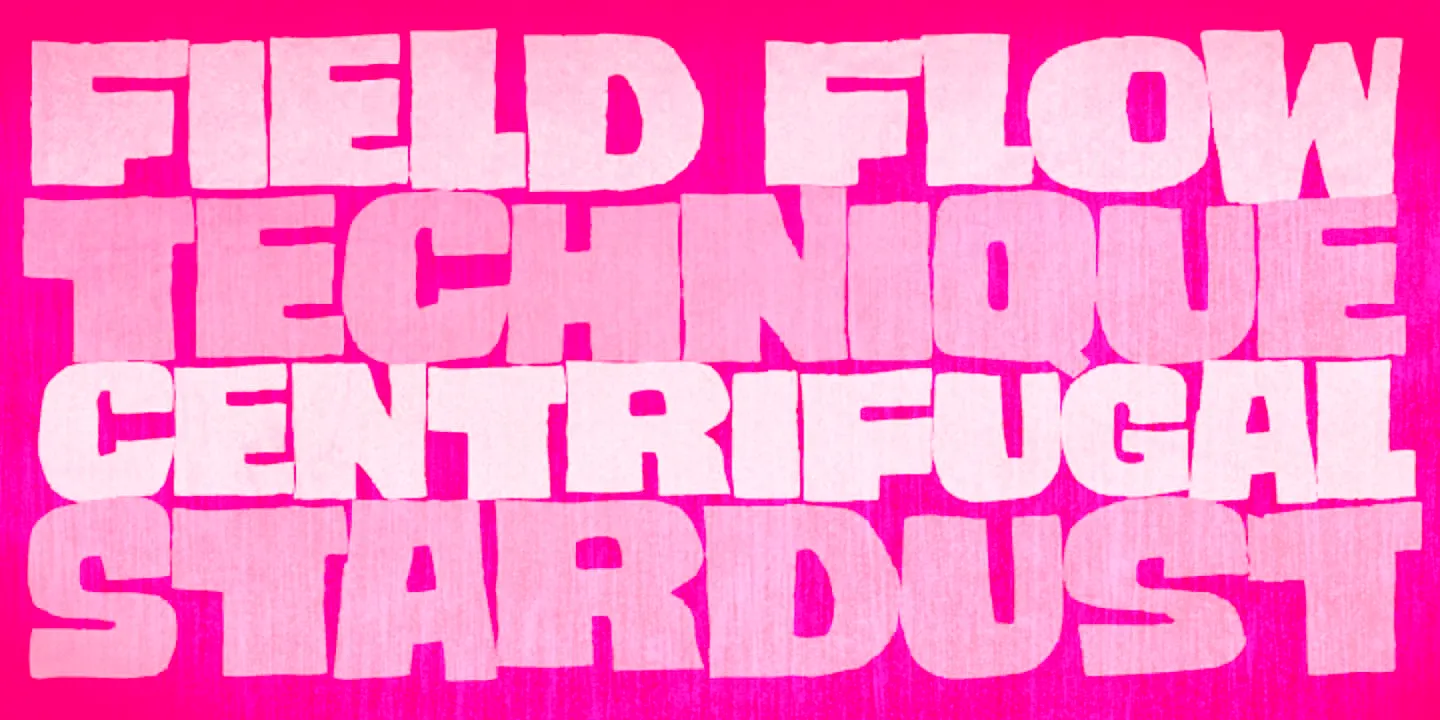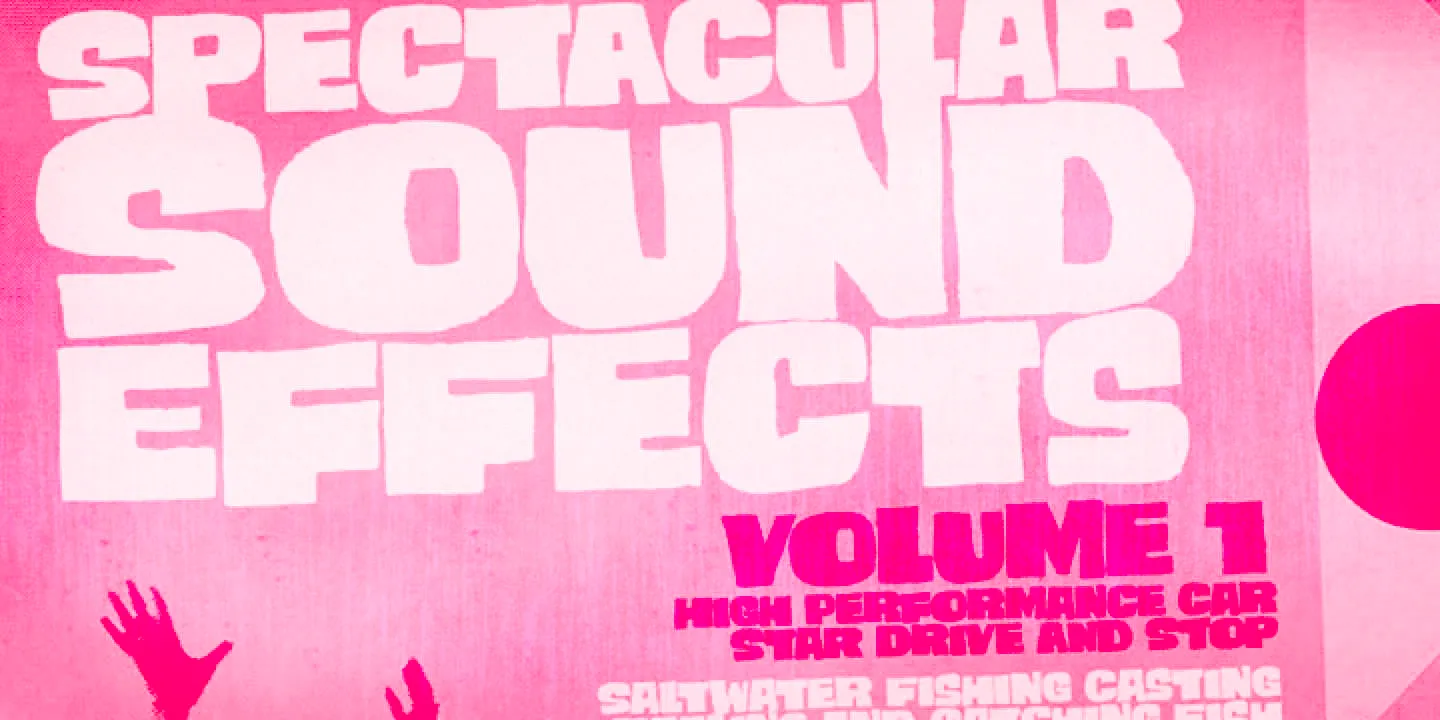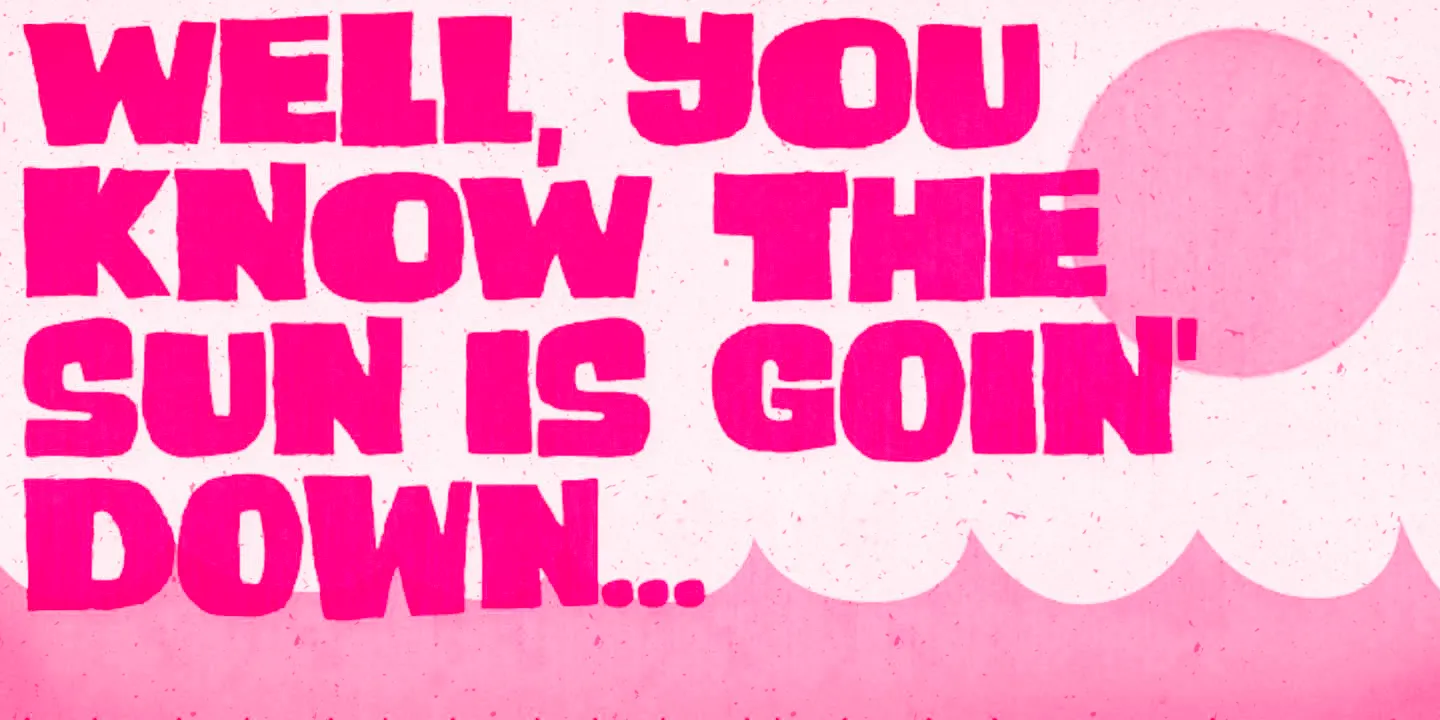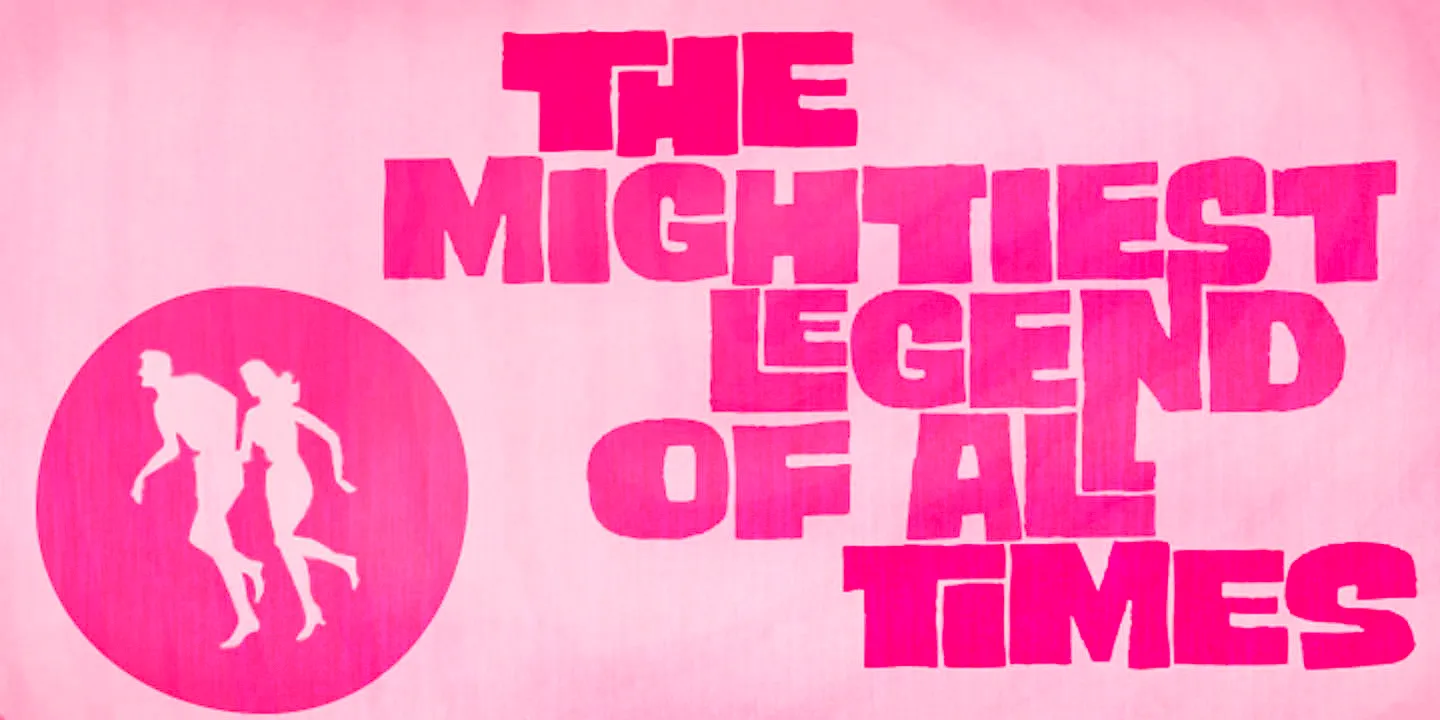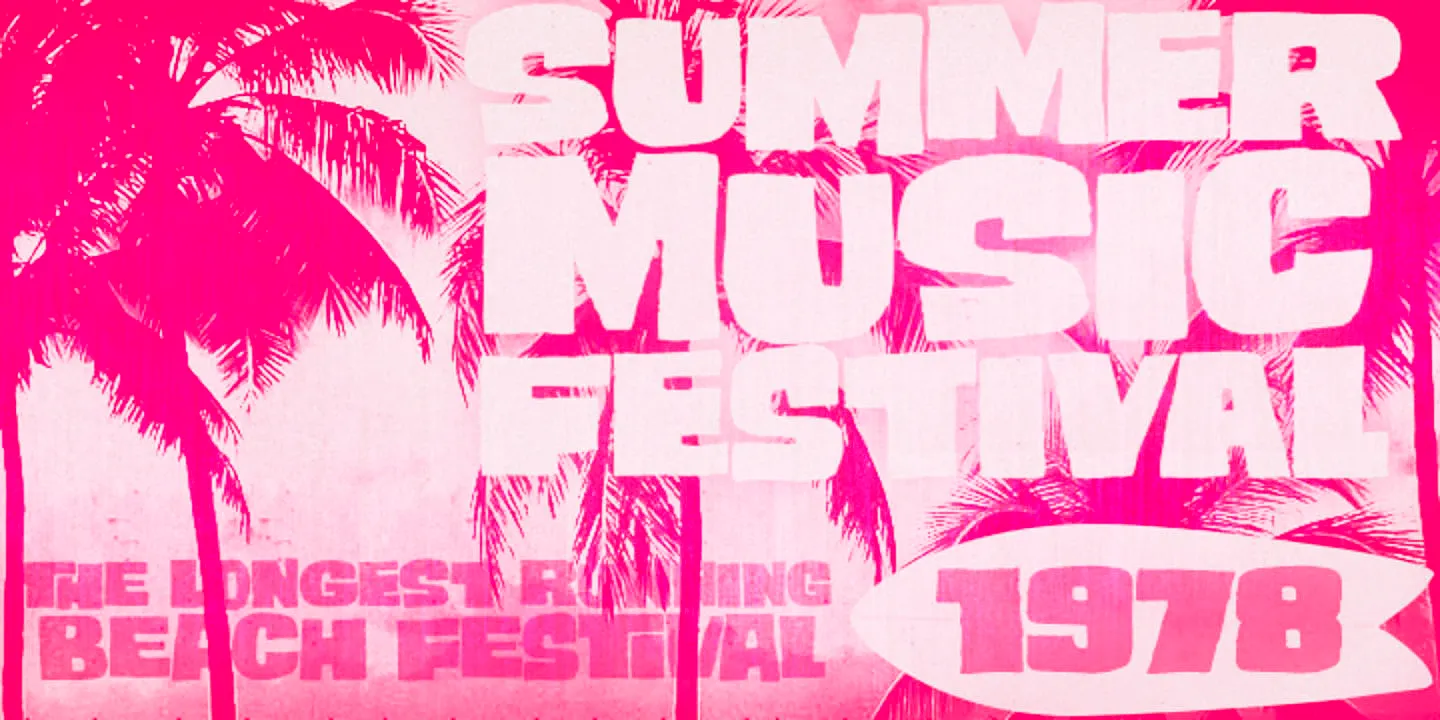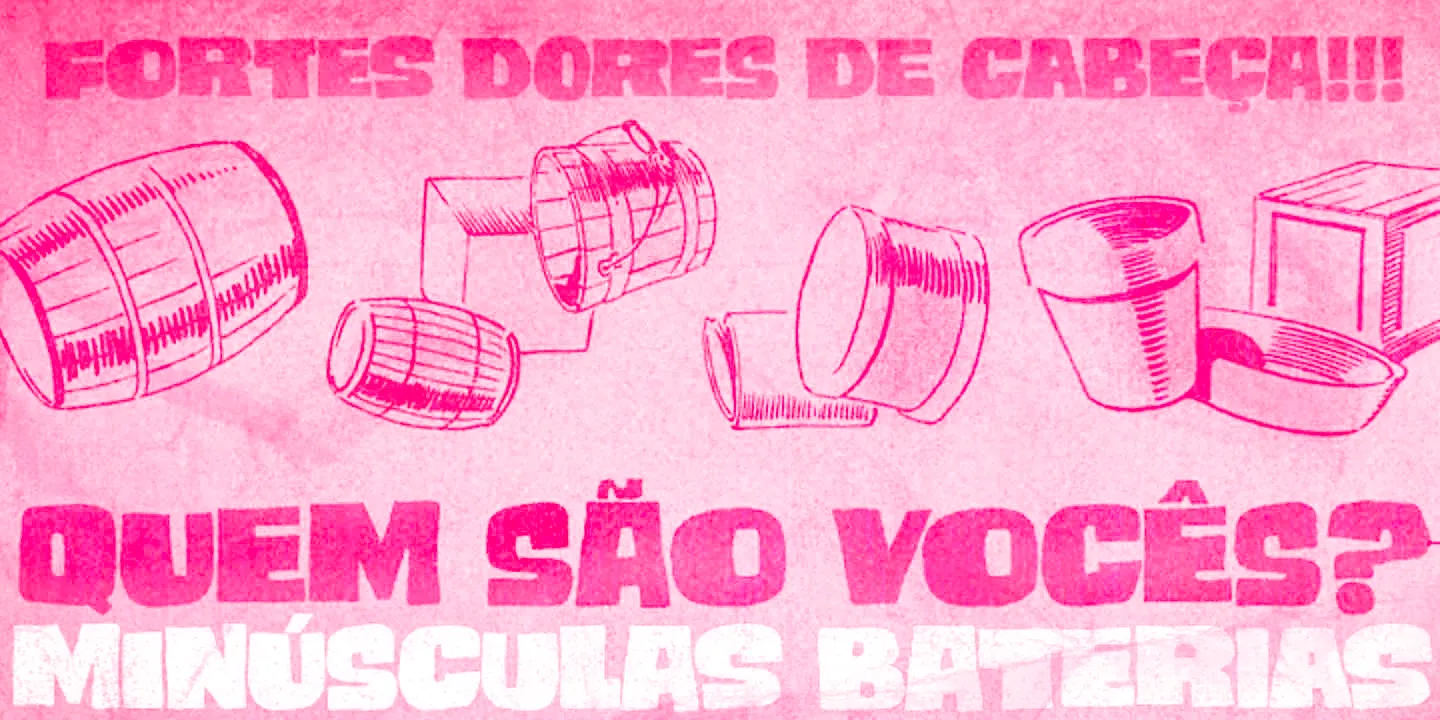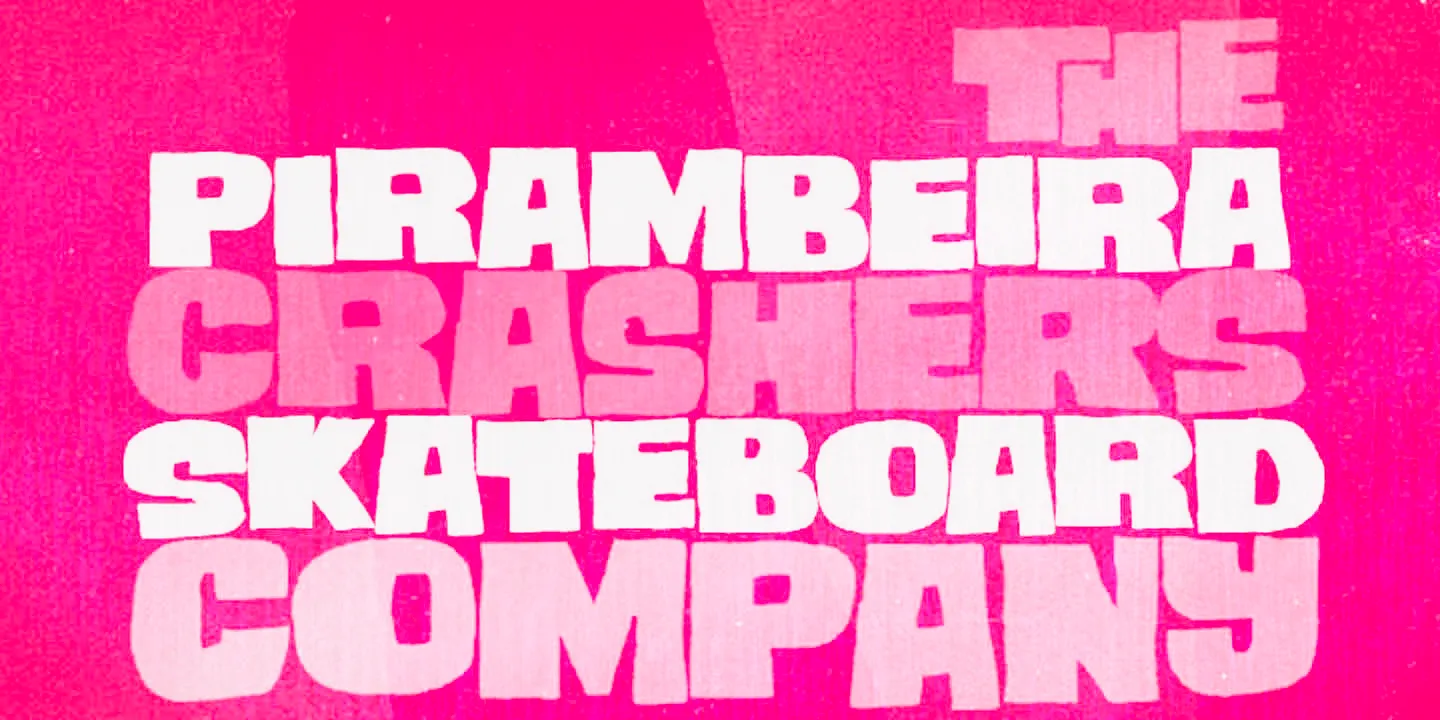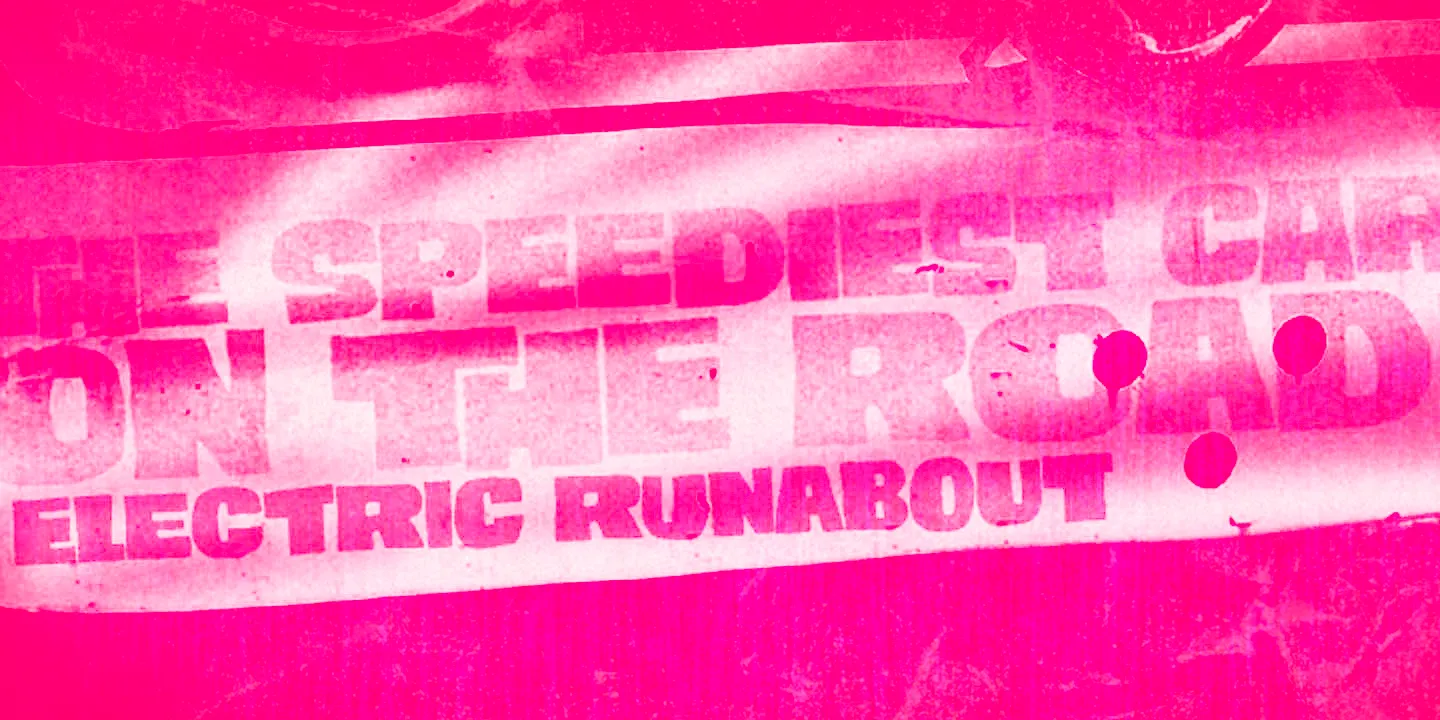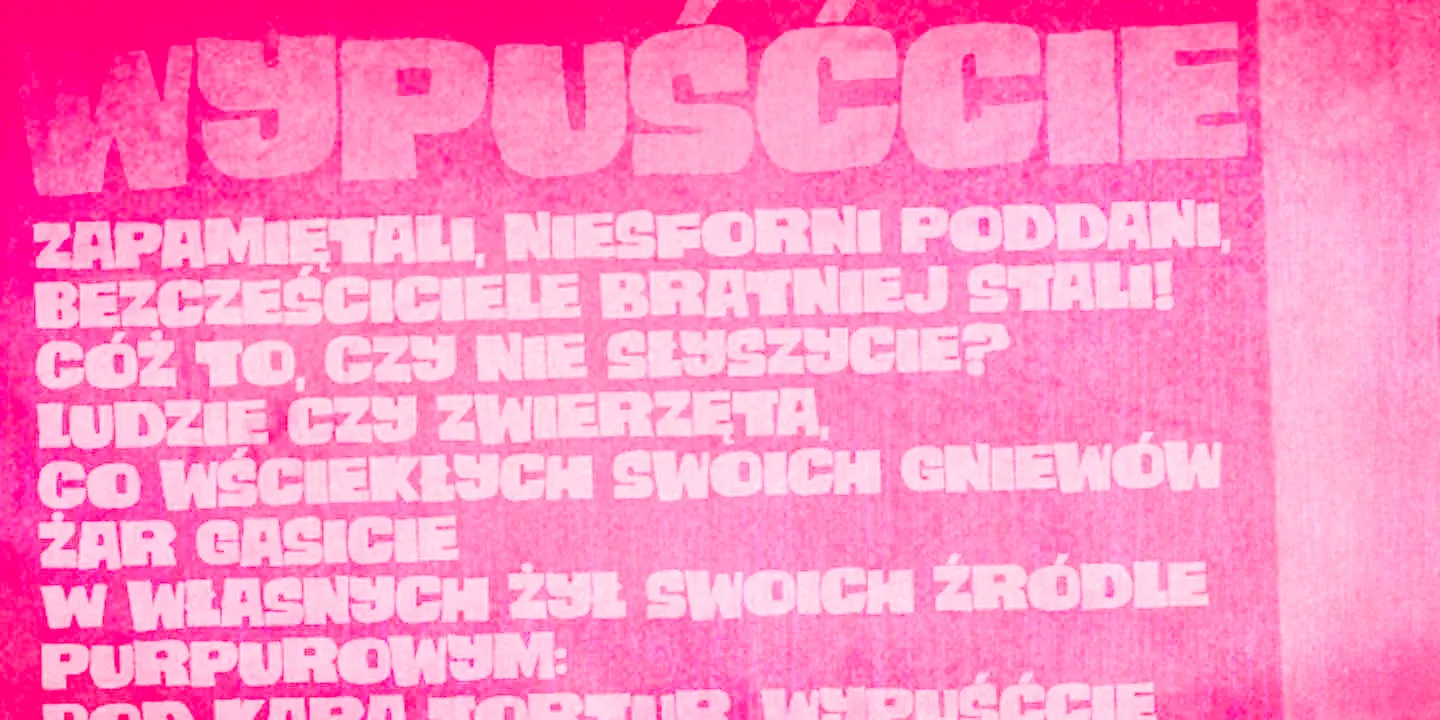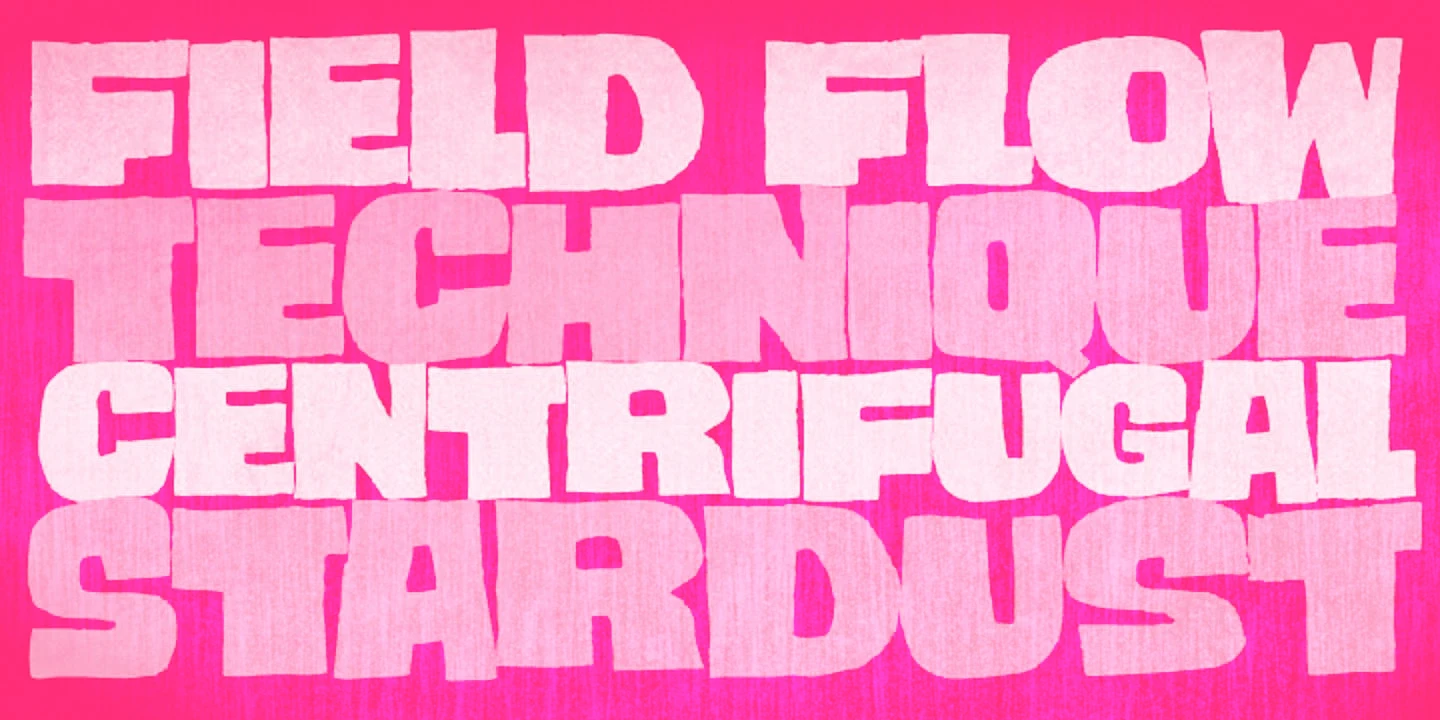
Smashing
Smashing is a boldly stout all-caps typeface with a twist. It has a massively monumental feel and buckets of good humor. With two options for each letter shape, repetition is minimized, providing a more spontaneous overall look. Tip: set it tight for maximum impact! With its hefty presence, you can make a statement in automotive billboards, food packaging, concert posters, apparel brands, and outdoor magazines! A smashing font for truly smashing designs!